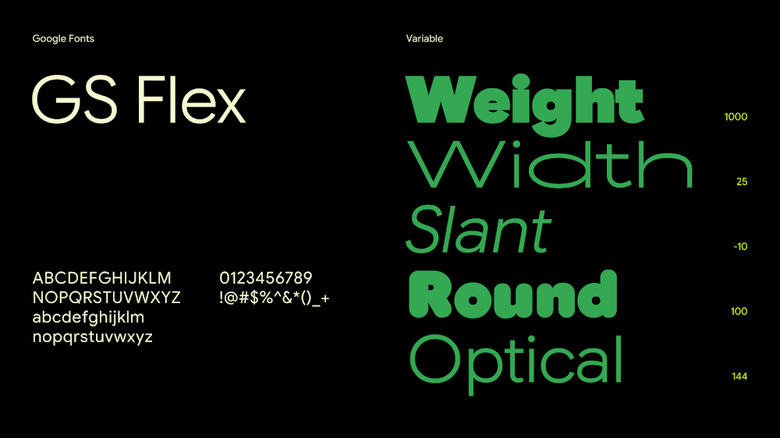
The Google Sans Flex typeface is now available to download
"No more using lookalike Google Sans fonts." - A Redditor
Typography nerds and Android fans, rejoice: You can now download an official version of "the next generation of Google's brand typeface." The company has released the Google Sans Flex font to the public for free.
The variable sans-serif font is part of Google's Material 3 design language, which arrived in 2023. 9to5Google notes that it's since been integrated into many of the company's products, including in some corners of Pixel software.
A 2024 Google Design blog post about variable typography highlights the font's flexibility, as seen in the image above. Casey Henry, a designer with the company, wrote that Google Sans Flex "allows the font's letterforms to shape-shift at different scales." OpenType Font Variations is the standard Google uses for variable fonts.
Meanwhile, a Reddit thread about the download dove deeper into typography nerdery. "Interesting behaviour when you condense the width," u/hbpencil102 wrote. "Instead of circles becoming ovals, they become more rectangular with rounded tops and bottoms, reminding me of DIN 1451." Amen to that.